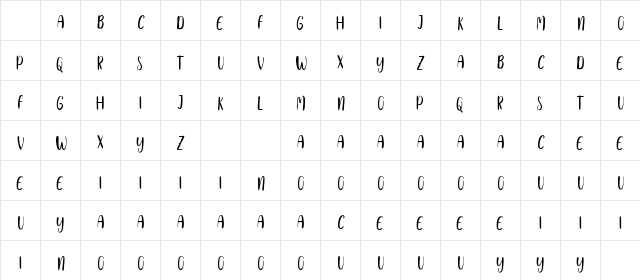
Complete Right Attitude Demo Sans Regular glyph index. Displaying only characters natively supported by Right Attitude Demo Sans Regular font.
Right Attitude Demo Sans is a composed and adaptable typeface that performs quietly and consistently across a wide range of design contexts.